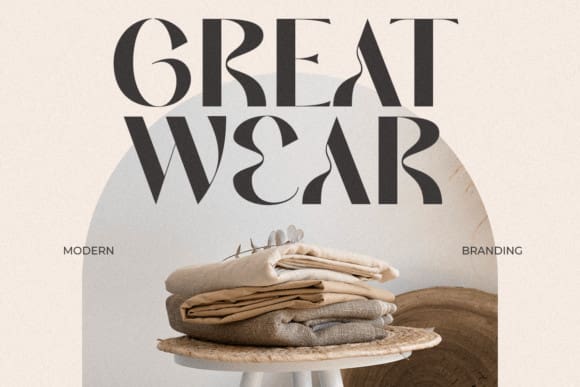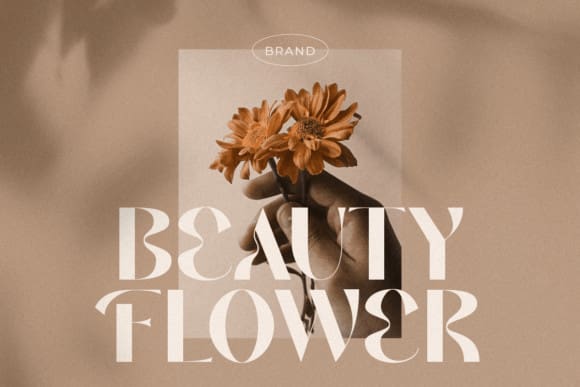
Aldora Font
Aldora Font is a bold and assertive sans serif font. No matter the topic, this font will be an incredible asset to your fonts’ library, as it has the potential to elevate any creation.